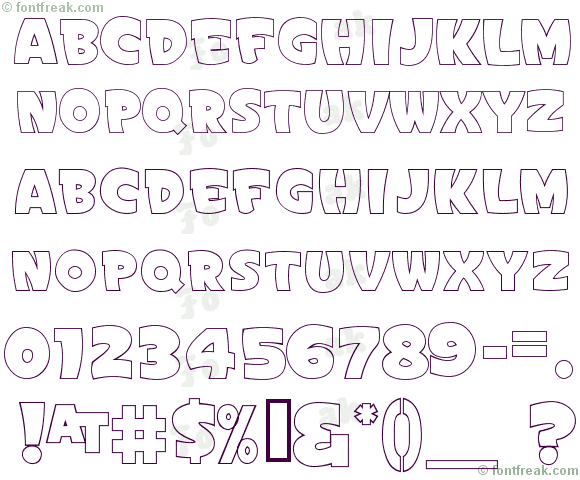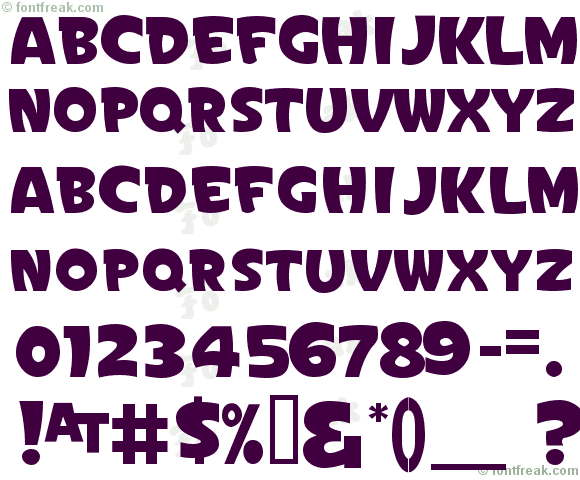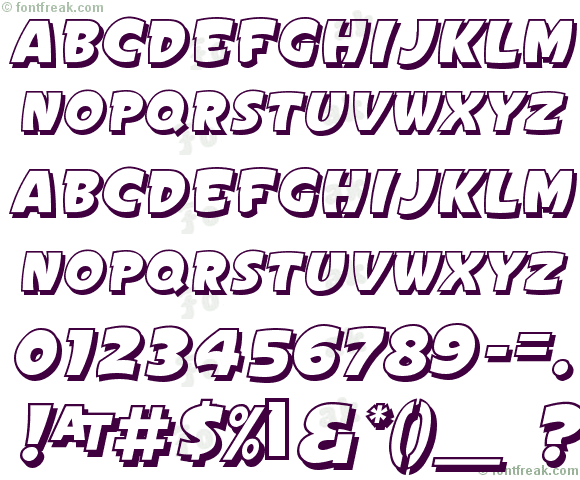
Sign Painters Gothic No. 2 JL
SignPainter'sGothicItal.Sh. JL
Sign Painter's Gothic SmC JL
Sign Painter's Gothic Shaded JL
SignPainter'sGothicShadedSC JL
Sign Painter's Gothic Light JL
Sign Painter's Gothic Open JL
Sign Painter's Gothic OSC JL
Sign Painter's Gothic JL
SignPainter'sGothicIt.Sh.SC JL
Sign Painter's Gothic, designed by Jeff Levine, is a captivating display font that embodies the spirit of traditional hand-painted signage. This font falls within the decorative category, featuring bold and striking letterforms that exude a sense of craftsmanship and authenticity. The strokes are robust and consistent, with a slight contrast that adds an appealing visual dynamism. The characters are well-spaced, ensuring readability while maintaining a rustic, artisanal vibe that is reminiscent of vintage storefronts.
The unique style of Sign Painter's Gothic makes it an ideal choice for a variety of creative projects. Its bold, eye-catching appearance is perfect for movie posters, where it can draw attention and convey a sense of nostalgia. Additionally, this font shines in restaurant menus, where its distinctive character can enhance the brand's identity and create an inviting atmosphere. It also works wonderfully for event signage, including festivals and fairs, capturing the essence of lively gatherings. Graphic designers may find it particularly useful for branding projects that require a touch of personality and charm, making it a versatile tool in their creative arsenal.
What sets Sign Painter's Gothic apart is its ability to blend nostalgia with modern design sensibilities. This font not only captures the essence of classic sign painting but also adapts seamlessly to contemporary applications. With its striking visual appeal and versatility, the Sign Painter's Gothic font free download is a must-have for anyone looking to add a unique touch to their projects.